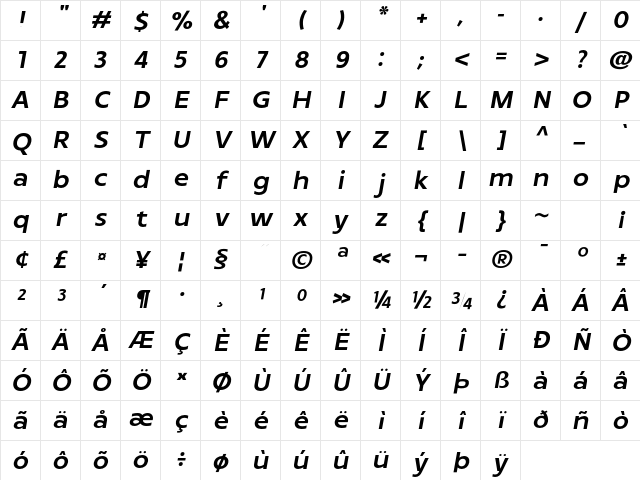
Archopada Oblique SemBd Regular Free Font
Archopada Oblique SemBd Regular
Designer: Wildan Suprian Syah
Design Context for Archopada Oblique SemBd
Archopada Oblique SemBd is a composed and adaptable typeface that performs quietly and consistently across a wide range of design contexts. The slanted form adds forward momentum and visual energy.
Pro Tip: Use Archopada Oblique SemBd for emphasis, pull quotes, and subheadings where its slanted energy can add rhythm to the layout.